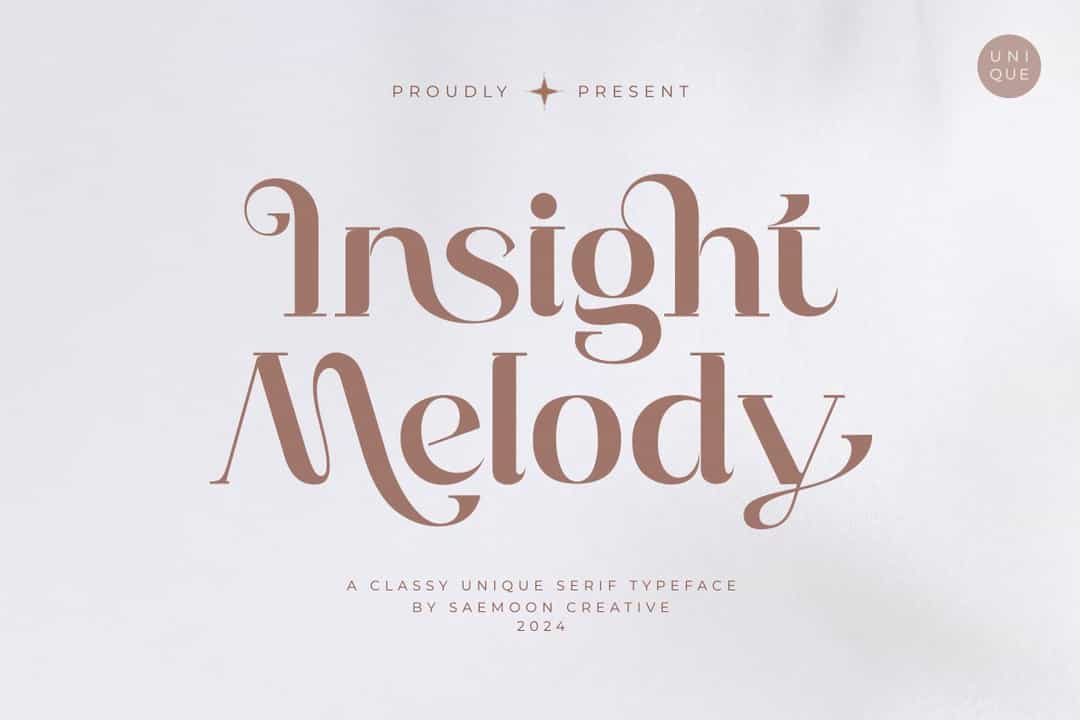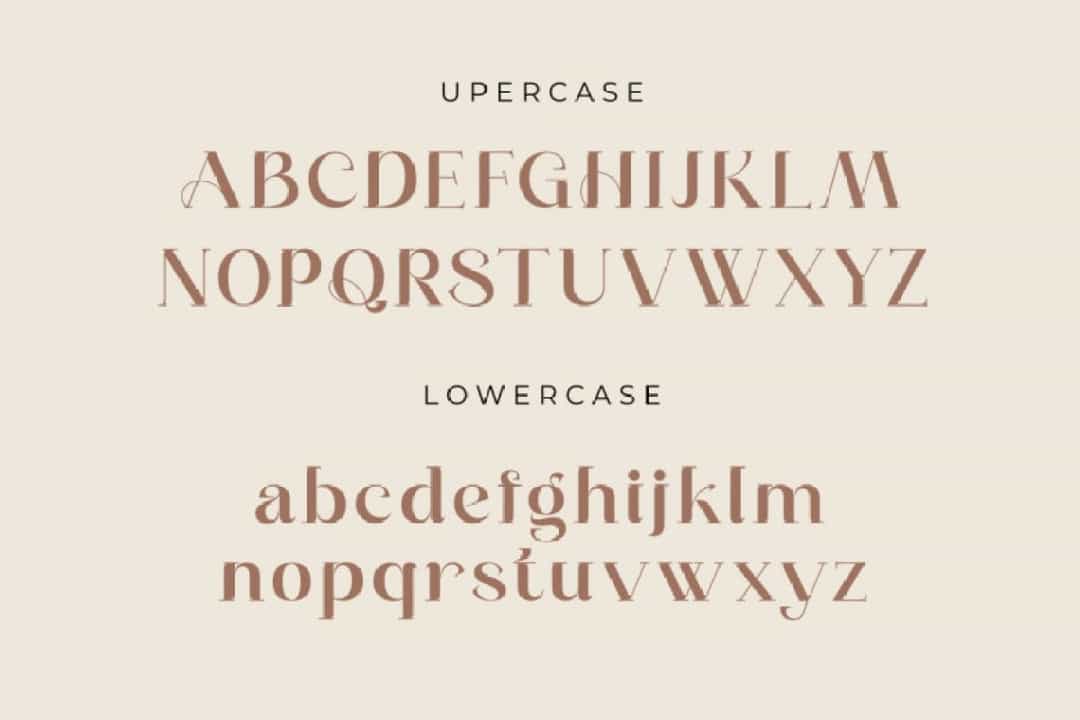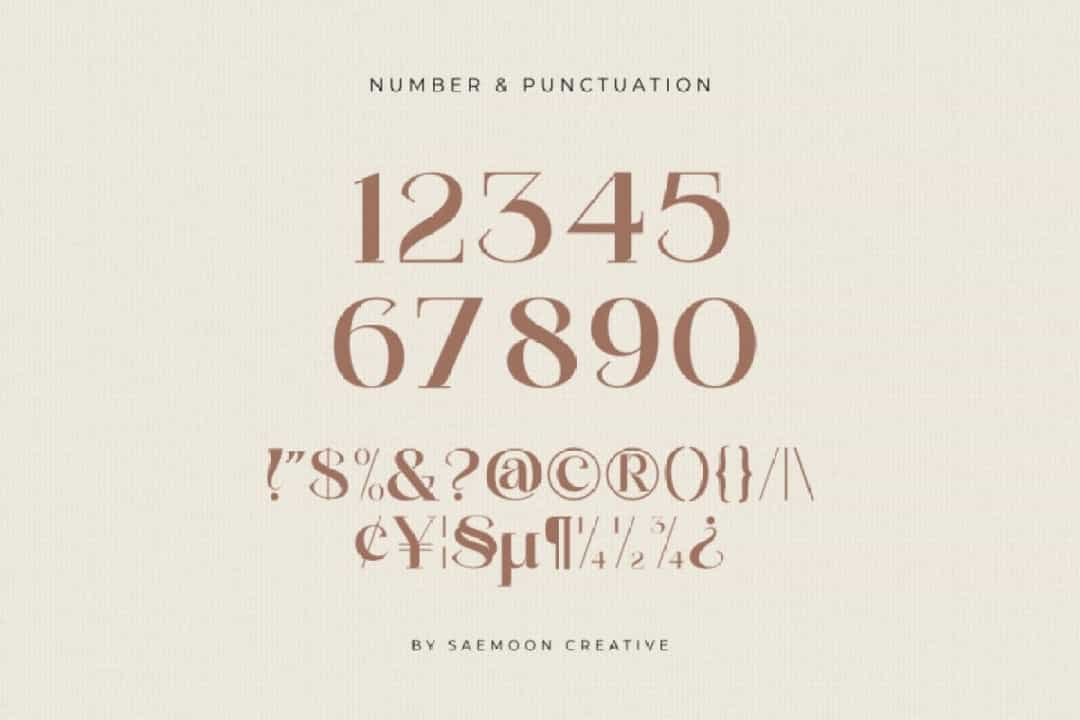
“Insight Melody” font is an elegant and original symbol that stands out. Crafted with perfect aesthetic harmony and design, each letter of this captivating font showcases incredible beauty while captivating imagination. Blending classic styling with contemporary accents, its blend creates an atmosphere that exudes refinement while still remaining original.